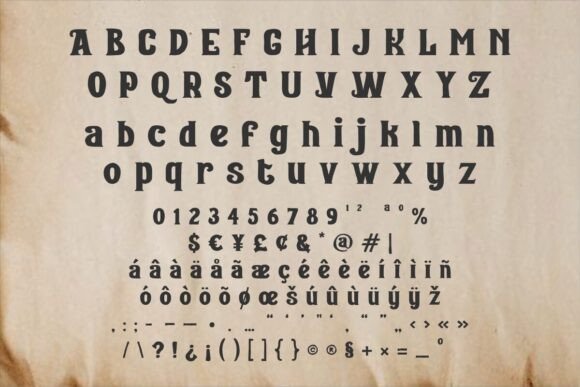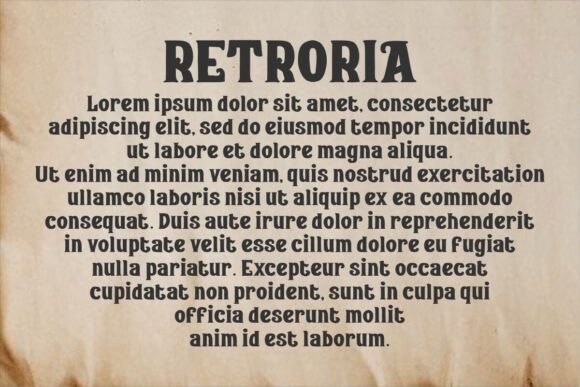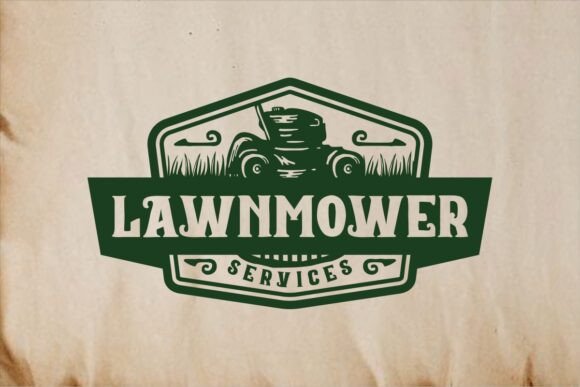
Introduction to Retroria Font
Retroria font combines the nostalgic charm of vintage typography with the personalized touch of hand-crafted artistry.
This typeface is characterized by its playful curves, uneven lines, and unique imperfections, giving it an authentic, organic feel It’s reminiscent of the classic signage and posters from the mid-20th century, often evoking a sense of warmth and familiarity.
Key Features of Retroria Font